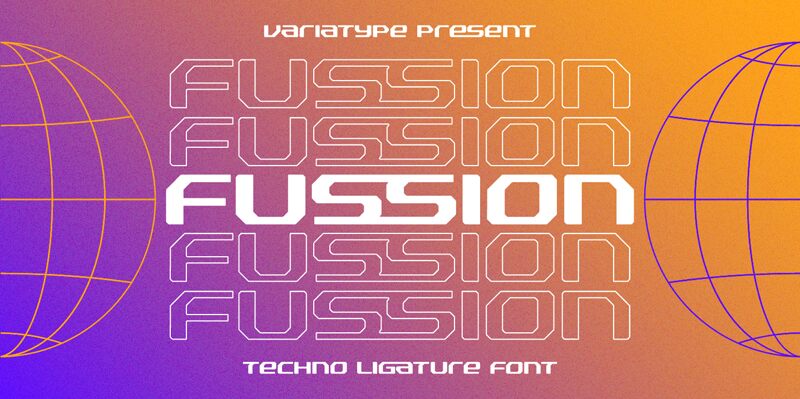
Fussion, a display font designed by Variatype, embodies a futuristic aesthetic that draws inspiration from modern technology.
Its semi-bold weight adds an impactful touch to your branding projects and logotypes, making them stand out in the digital landscape. Fussion is particularly suited for commercial ventures, providing a sleek and cutting-edge look to any marketing campaign. With its wide range of ligatures, this font offers flexibility and adaptability to accommodate various brand names.
Elevate your designs with Fussion's innovative style and make a lasting impression on your audience.